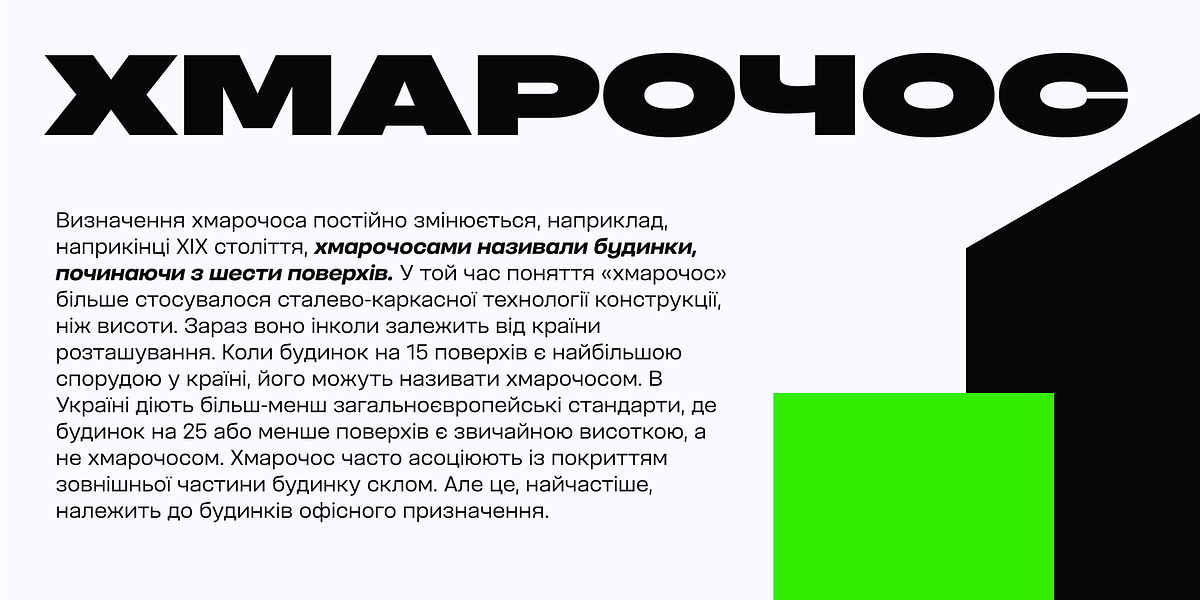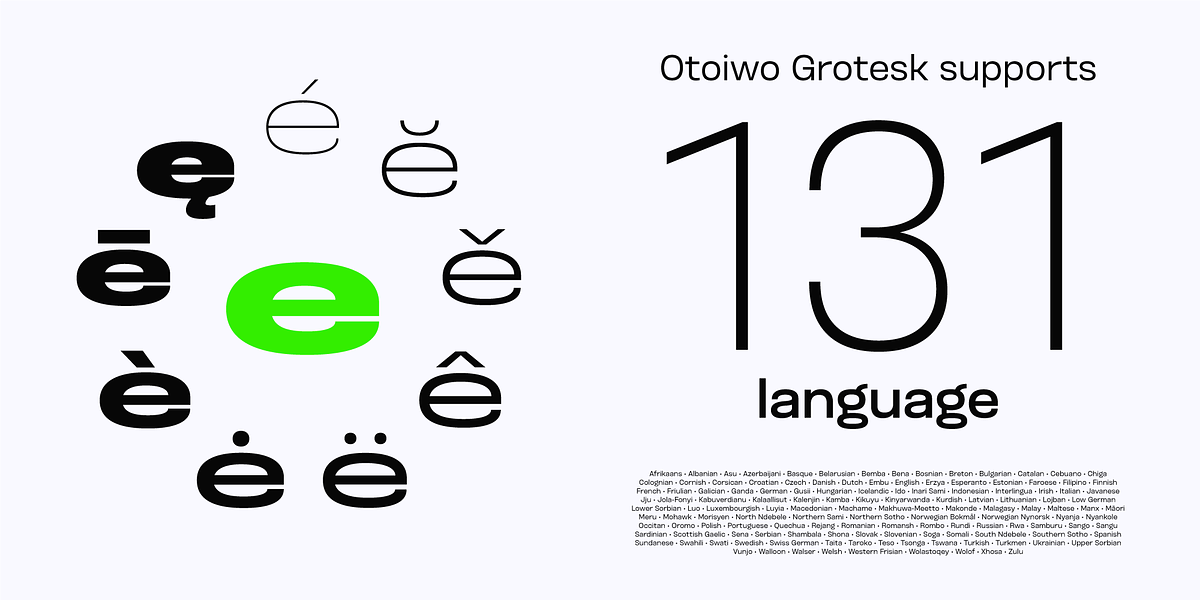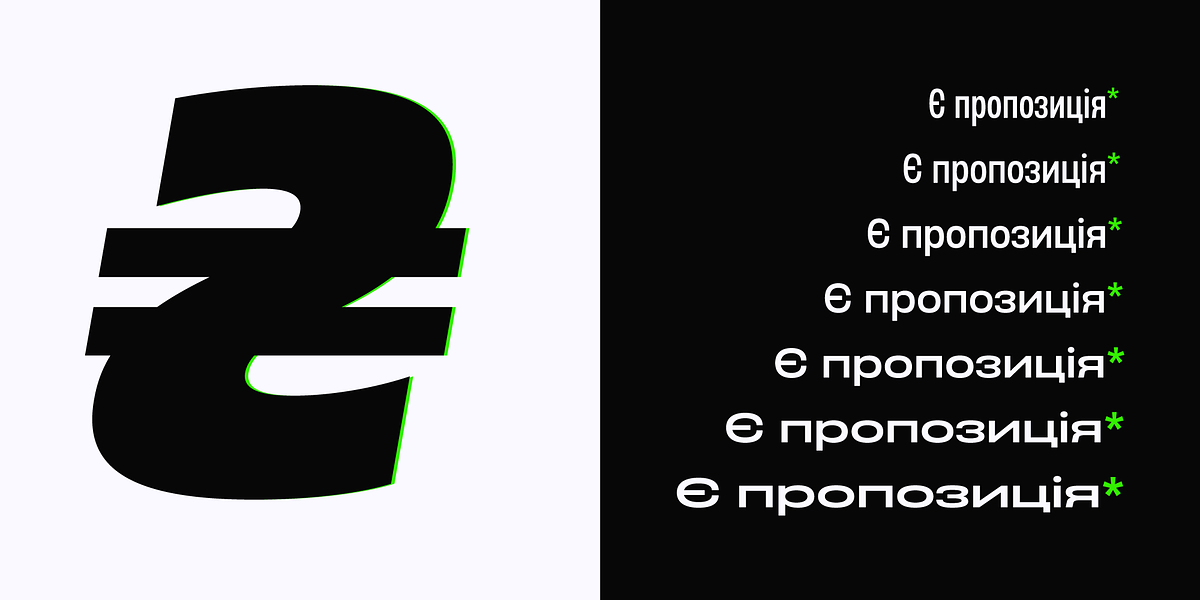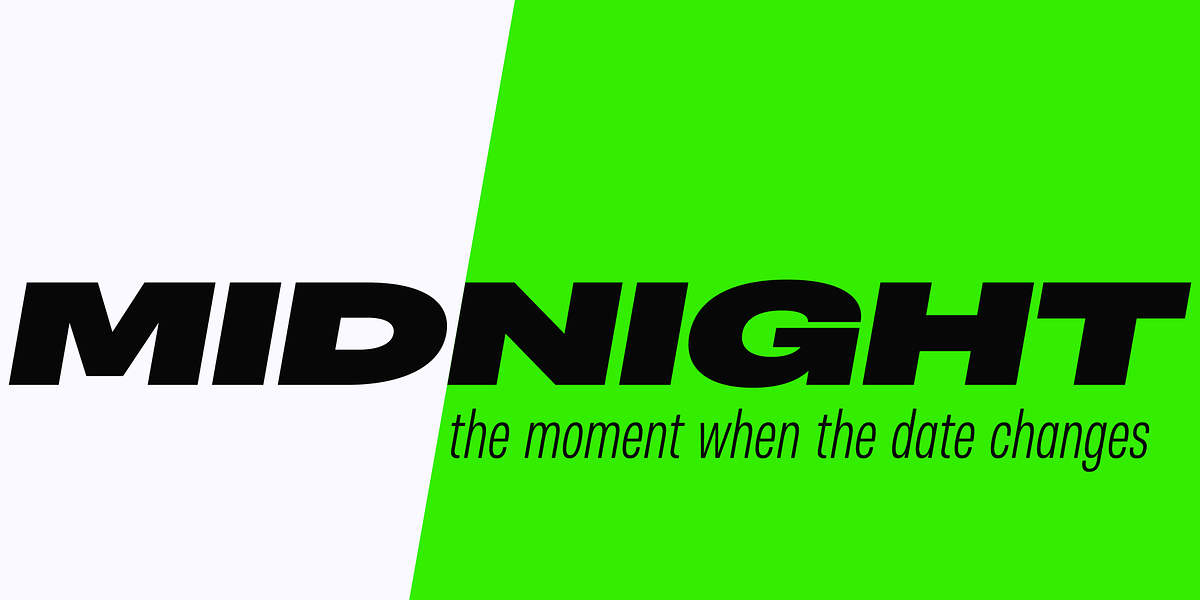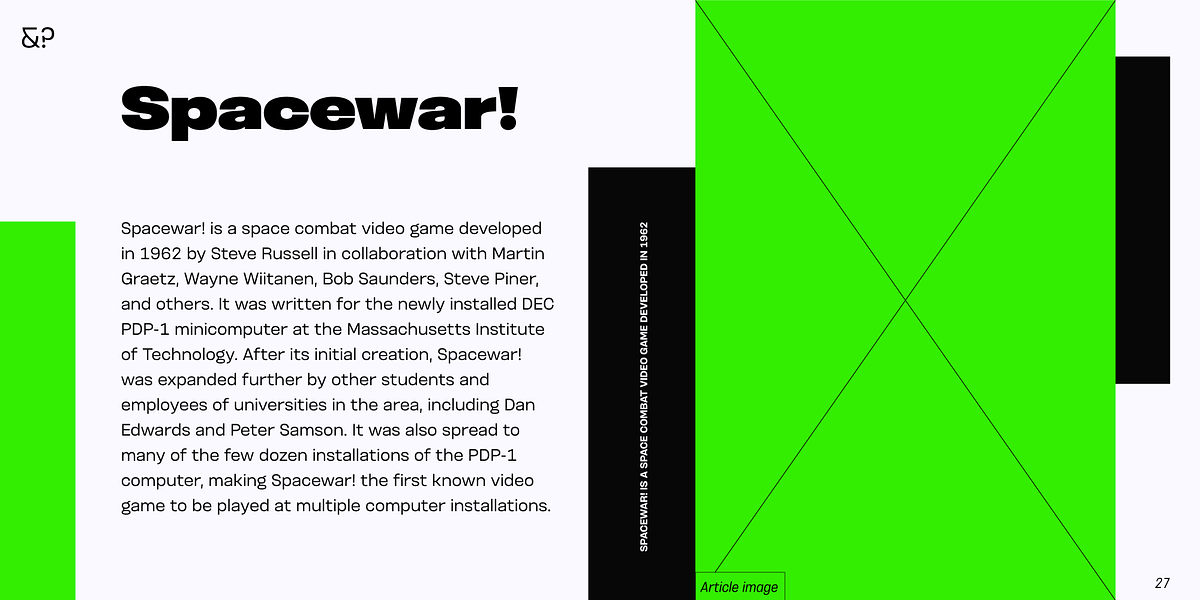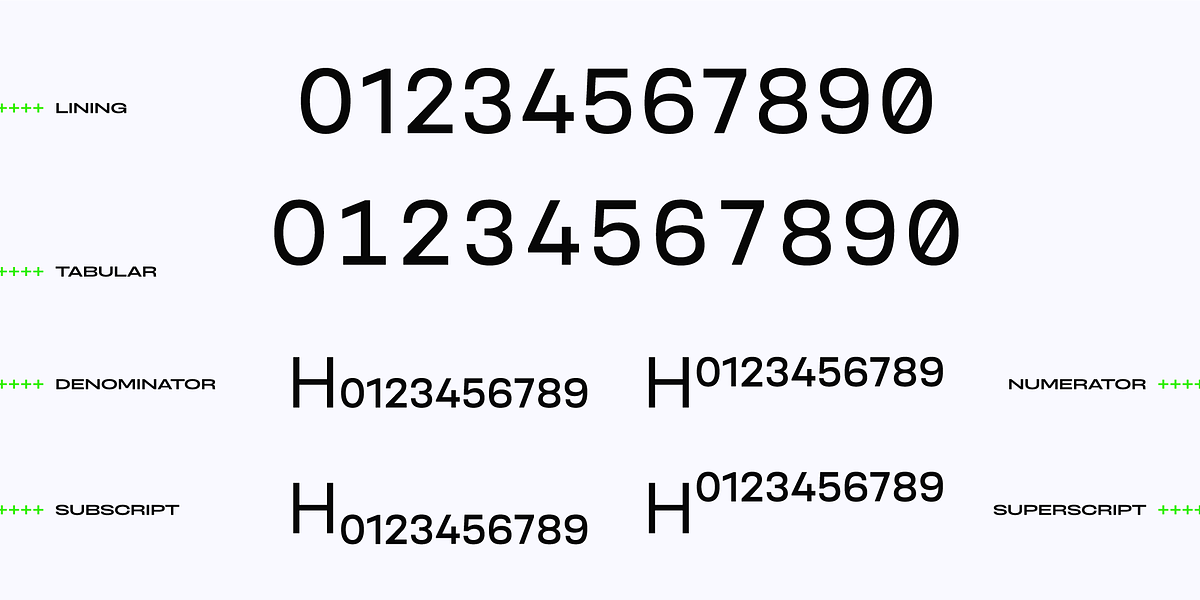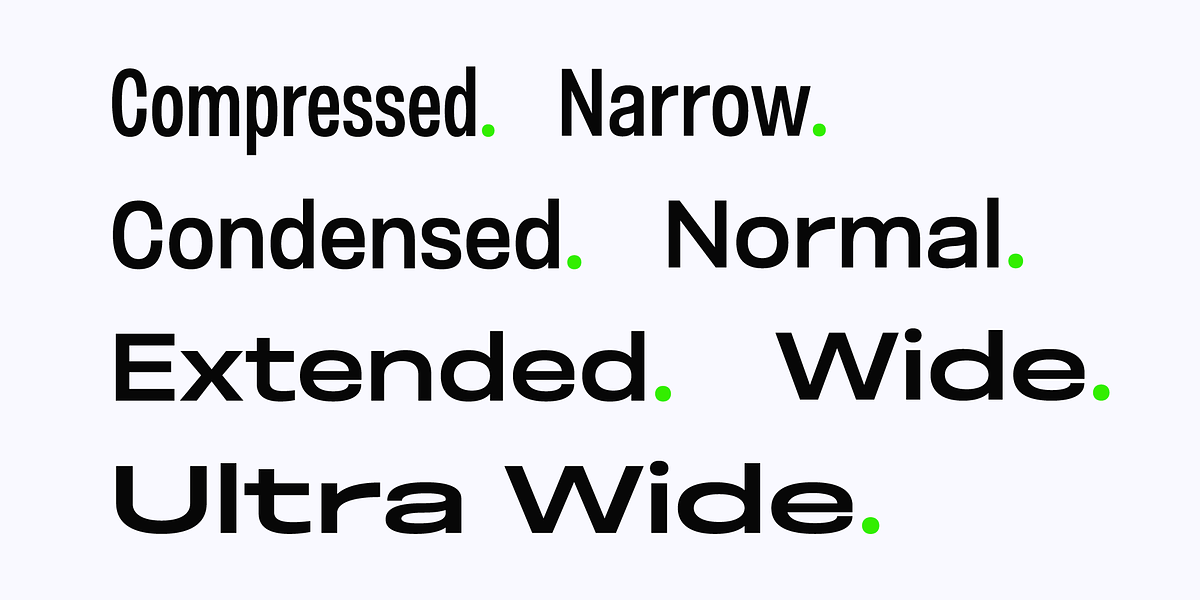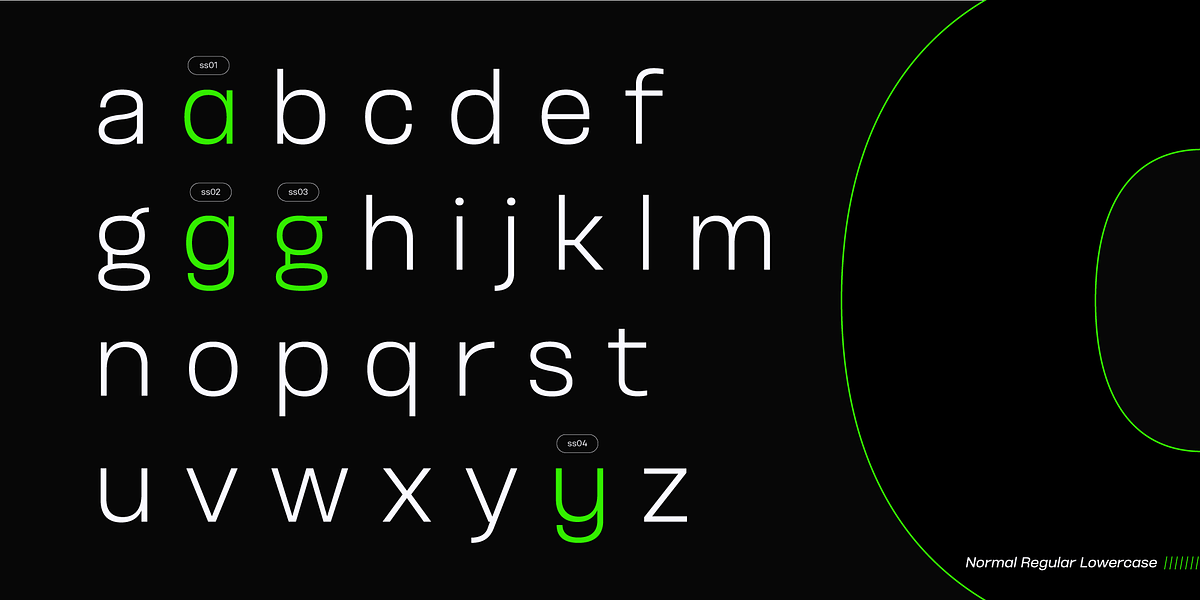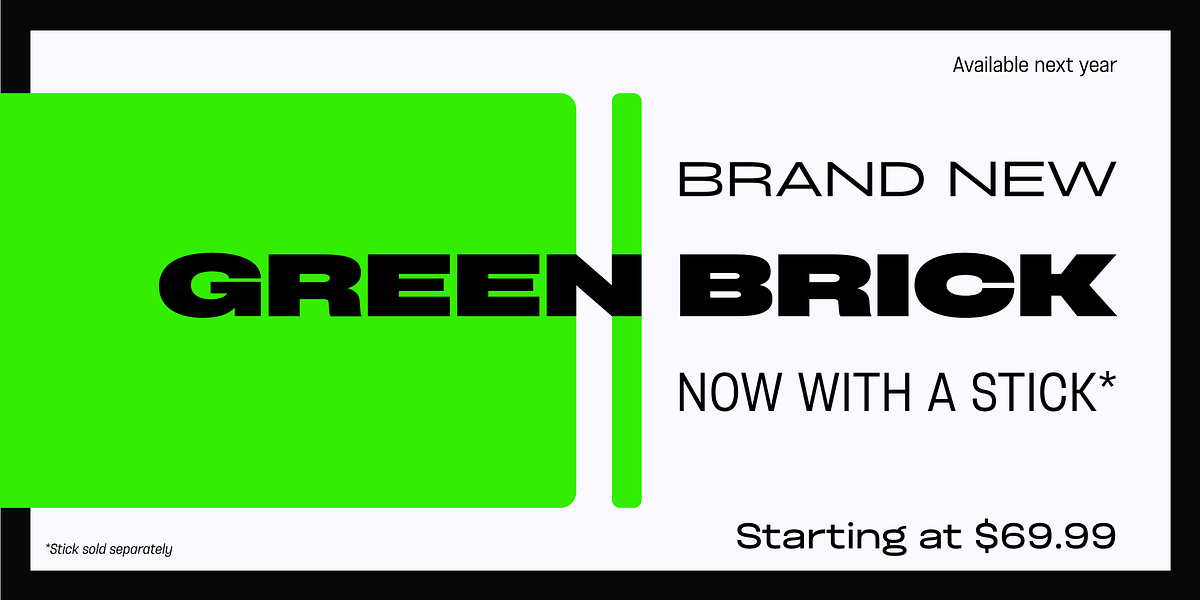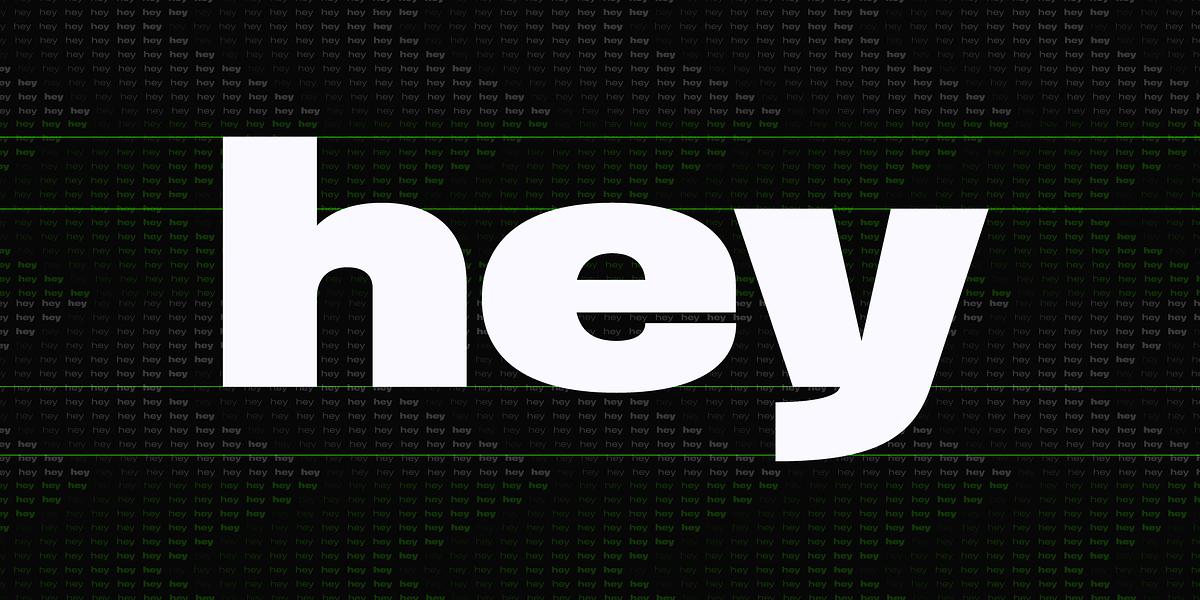
Otoiwo Grotesk Ultra Wide
Otoiwo Grotesk is a geometric sans-serif typeface offering exceptional versatility with 126 styles spread across seven widths and nine weights. Each style includes an italic variant. The font family's personality ranges from neutral in its Normal and Condensed widths to more expressive in the Compressed and Ultra Wide styles. With extensive language support encompassing Cyrillic script and a total of 131 languages, Otoiwo Grotesk is well-suited for brands targeting international audiences.